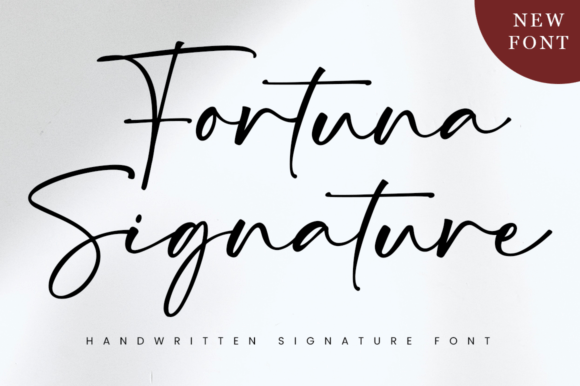
Introducing Fortuna Signature Font: Elevate Your Designs with Timeless Elegance
In the realm of typography, few fonts manage to capture the essence of elegance and sophistication as effectively as Fortuna Signature. This beautiful handwritten font has been designed to leave a lasting impression, making it an ideal choice for a wide range of applications, from logos and wedding stationery to photography watermarks and modern websites. With its incredibly distinct and timeless style, Fortuna Signature is poised to become your go-to font for creating spectacular designs that stand out from the crowd.
The Charm of Fortuna Signature
Fortuna Signature is more than just a font; it’s an experience. Its handwritten elegance exudes warmth and sophistication, making it perfect for projects that demand a personal touch. Whether you’re designing a logo for a boutique brand, crafting the perfect wedding invitation, or adding a professional watermark to your photographs, Fortuna Signature brings a level of refinement that’s hard to match.
Key Features of Fortuna Signature
- PUA Encoded: Fortuna Signature is PUA (Private Use Area) encoded, which means you can easily access all the glyphs and swashes. This feature allows for greater flexibility and creativity in your designs, making it easier to add those special touches that make your work truly unique.
- Handwritten Elegance: The font boasts a beautiful, handwritten style that adds a touch of elegance and sophistication to any design.
- Versatility: Fortuna Signature is incredibly versatile, making it suitable for a wide range of applications, including logos, wedding stationery, photography watermarks, and modern websites.
- Distinct and Timeless Style: The font’s design is both distinct and timeless, ensuring that your designs will remain stylish and relevant for years to come.
Applications of Fortuna Signature
The versatility of Fortuna Signature is one of its most compelling features. Here are some of the many ways you can use this beautiful font to elevate your designs:
1. Logos and Branding
For businesses looking to establish a strong brand identity, Fortuna Signature offers a unique and memorable solution. Its elegant style makes it perfect for boutiques, beauty salons, and any brand aiming to convey sophistication and luxury.
2. Wedding Stationery
Wedding planners, designers, and couples looking for that special font to make their wedding stationery stand out will love Fortuna Signature. Its romantic and elegant feel makes it ideal for wedding invitations, save-the-date cards, and more.
3. Photography Watermarks
Photographers seeking a professional yet stylish watermark for their images will find Fortuna Signature to be an excellent choice. The font’s subtle elegance adds a touch of class to any photograph without detracting from the image itself.
4. Modern Websites
For web designers looking to create a site that stands out, Fortuna Signature can be used for headings, titles, and even body text to give the site a unique and sophisticated feel.
Why Choose Fortuna Signature?
With so many fonts available, why choose Fortuna Signature? The answer lies in its unique combination of elegance, versatility, and ease of use. Here are a few reasons why Fortuna Signature stands out:
- Ease of Use: Thanks to its PUA encoding, using Fortuna Signature is straightforward. You can easily access all the glyphs and swashes, making the design process smooth and efficient.
- Unique Style: The font’s distinct and timeless style ensures that your designs will stand out. In a world where generic fonts are common, Fortuna Signature offers a breath of fresh air.
- Support and Updates: When you choose Fortuna Signature, you’re not just buying a font; you’re gaining access to support and potential future updates, ensuring that you can continue to use the font in your evolving projects.
| Author | RasdiType |
Fortuna Signature is more than just a font; it’s a tool for designers and creators looking to infuse their work with elegance, sophistication, and a touch of timelessness. Its versatility, combined with its PUA encoding and beautiful handwritten style, makes it an invaluable asset for anyone looking to create spectacular designs. Whether you’re working on a logo, wedding stationery, photography watermarks, or modern websites, Fortuna Signature is the perfect companion for your creative journey. So why wait? Fall in love with Fortuna Signature’s distinct style and let it guide you in creating designs that leave a lasting impression.